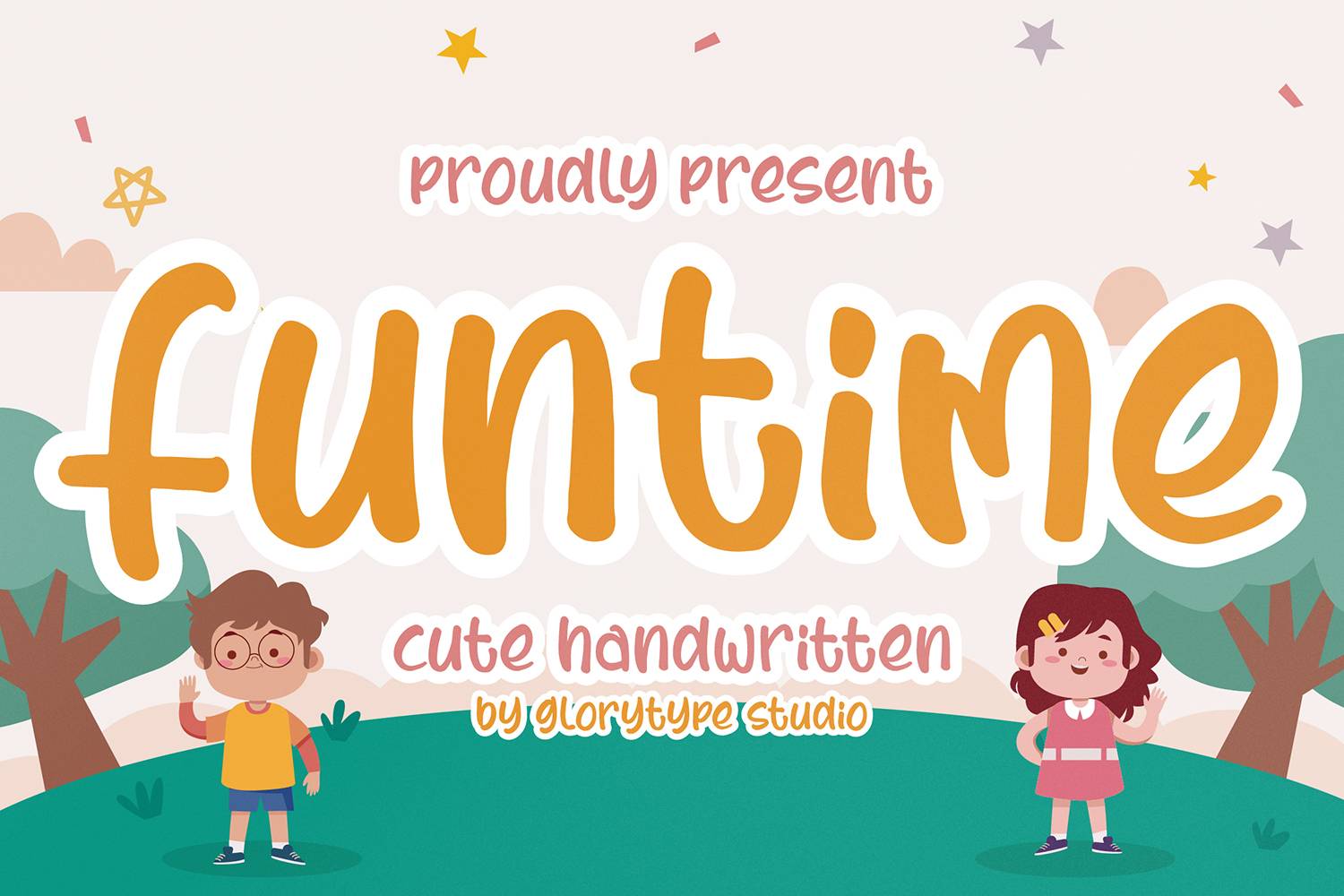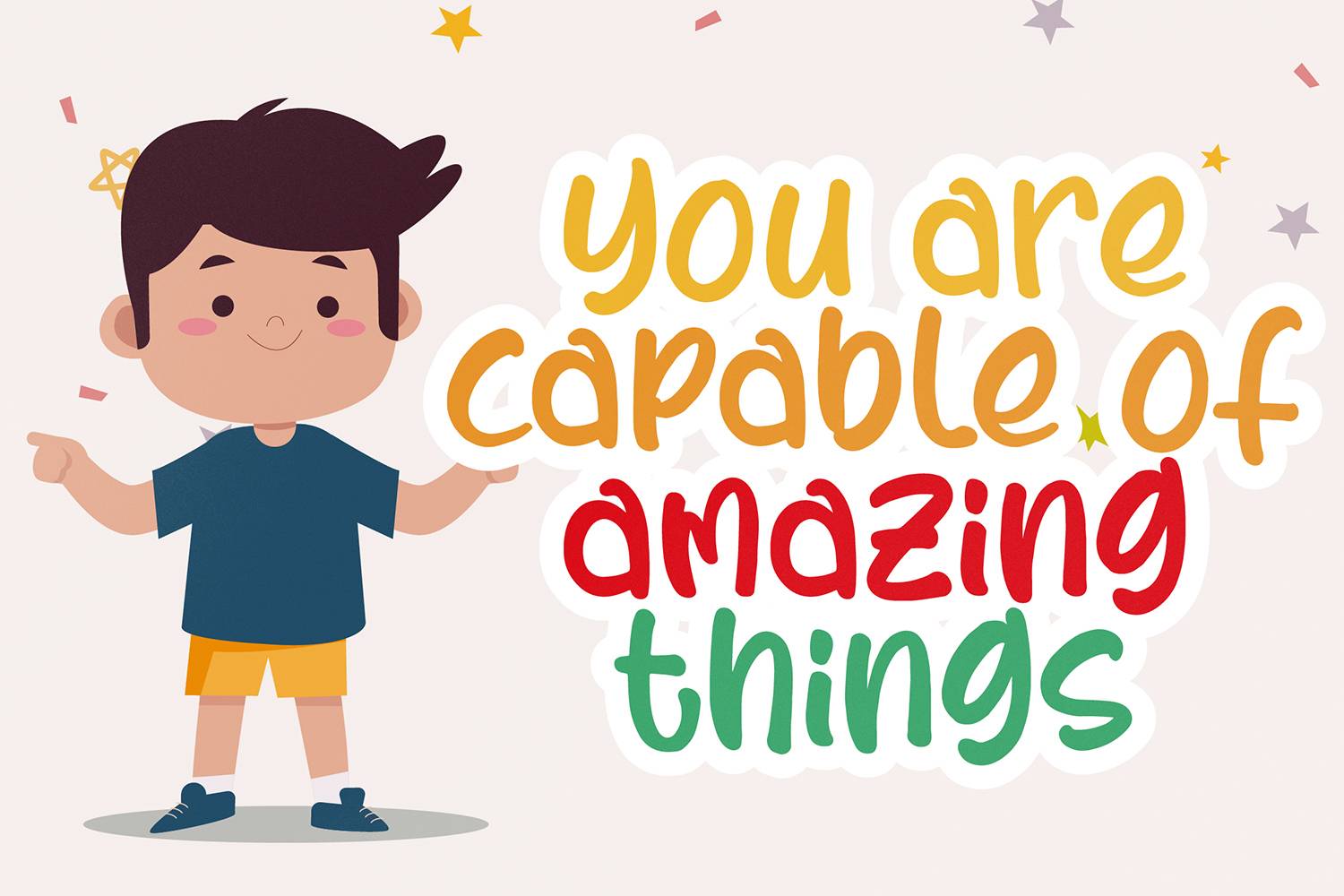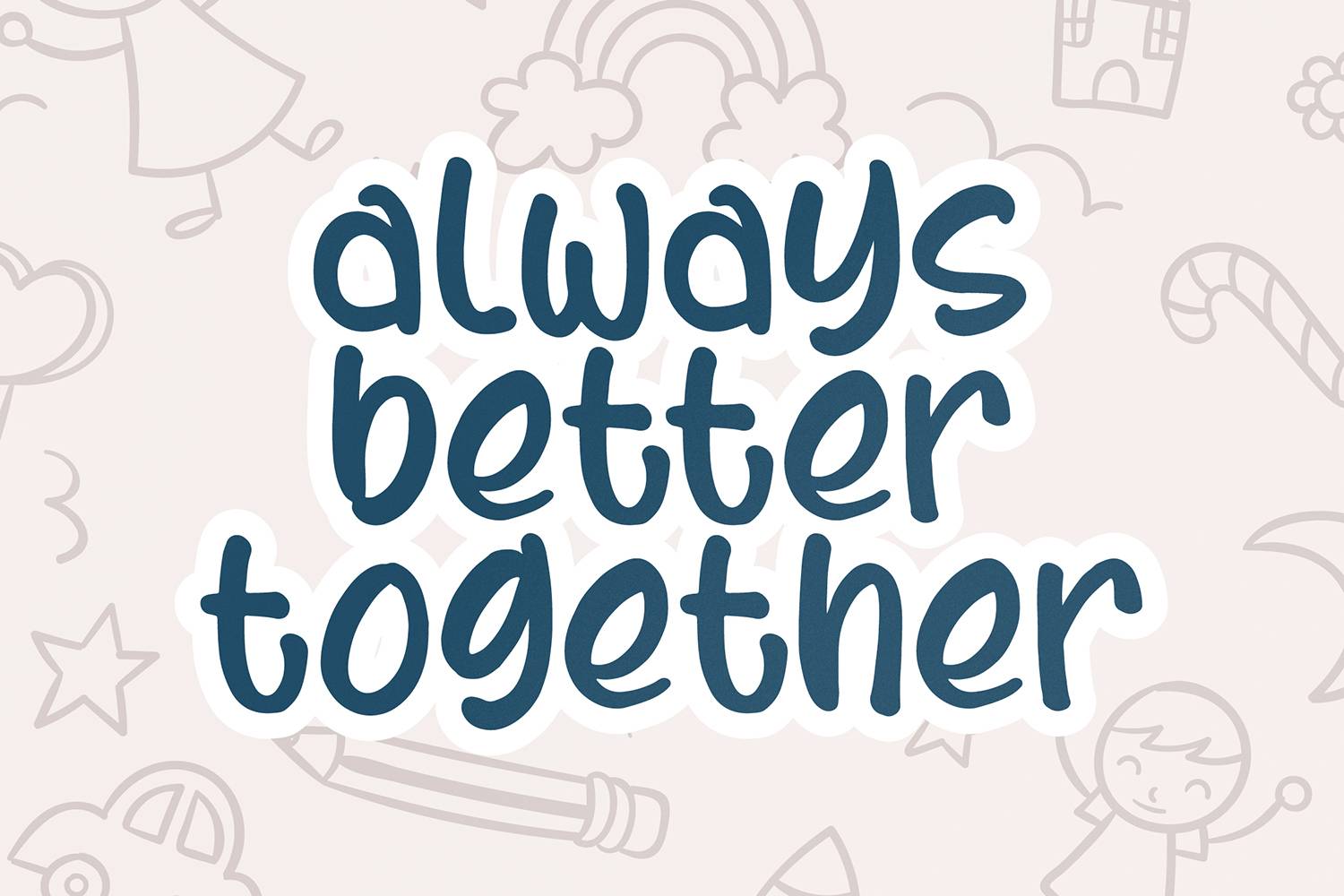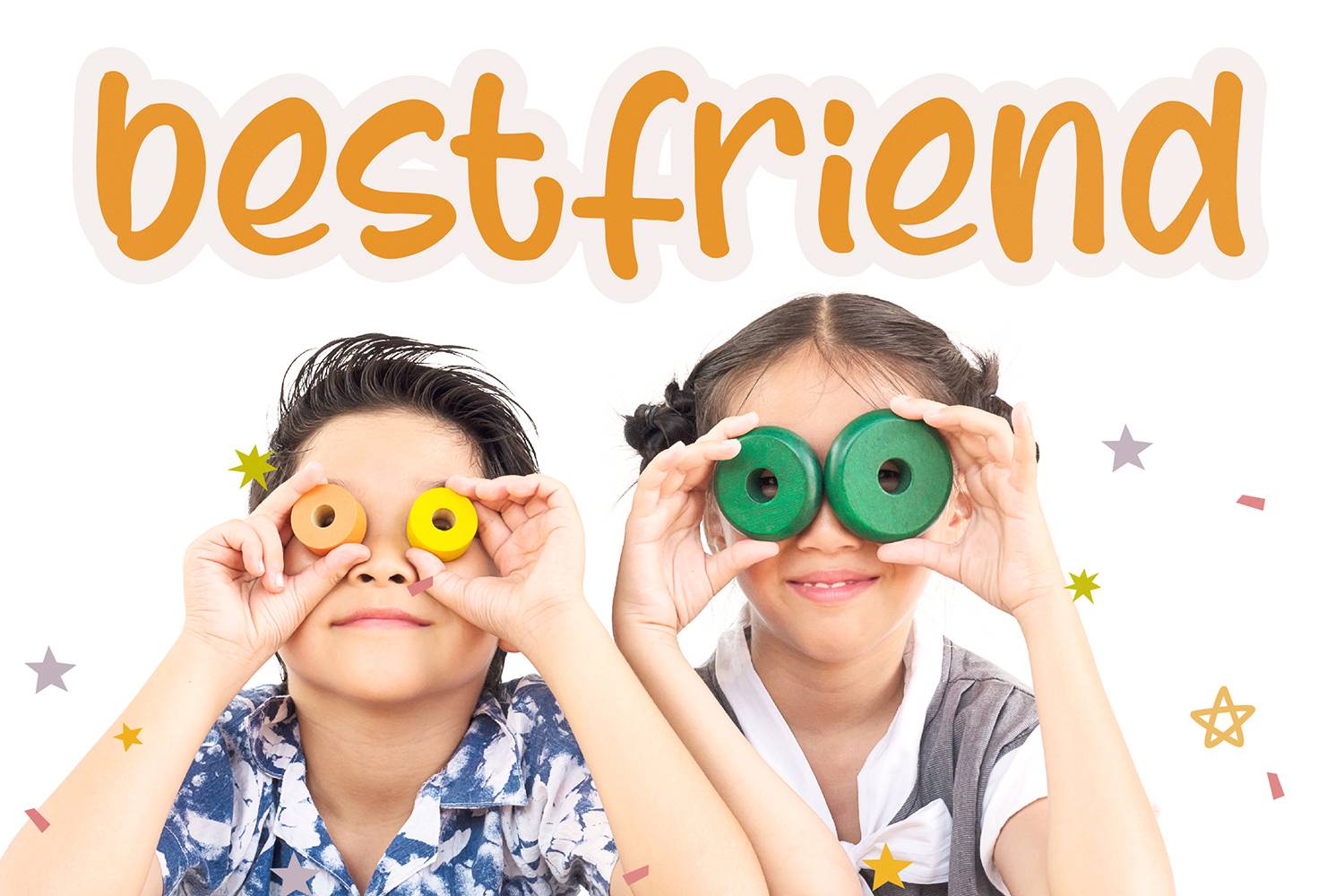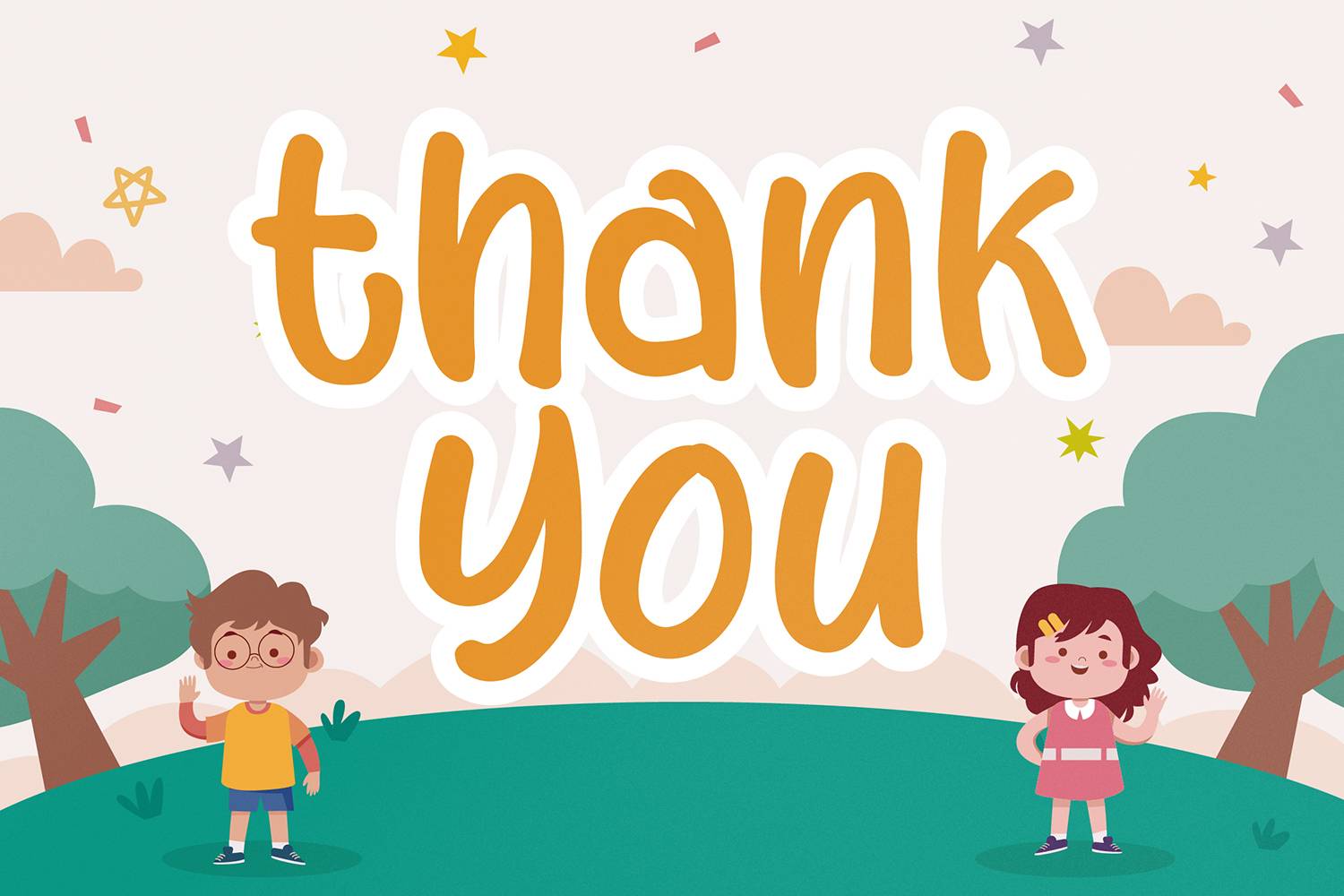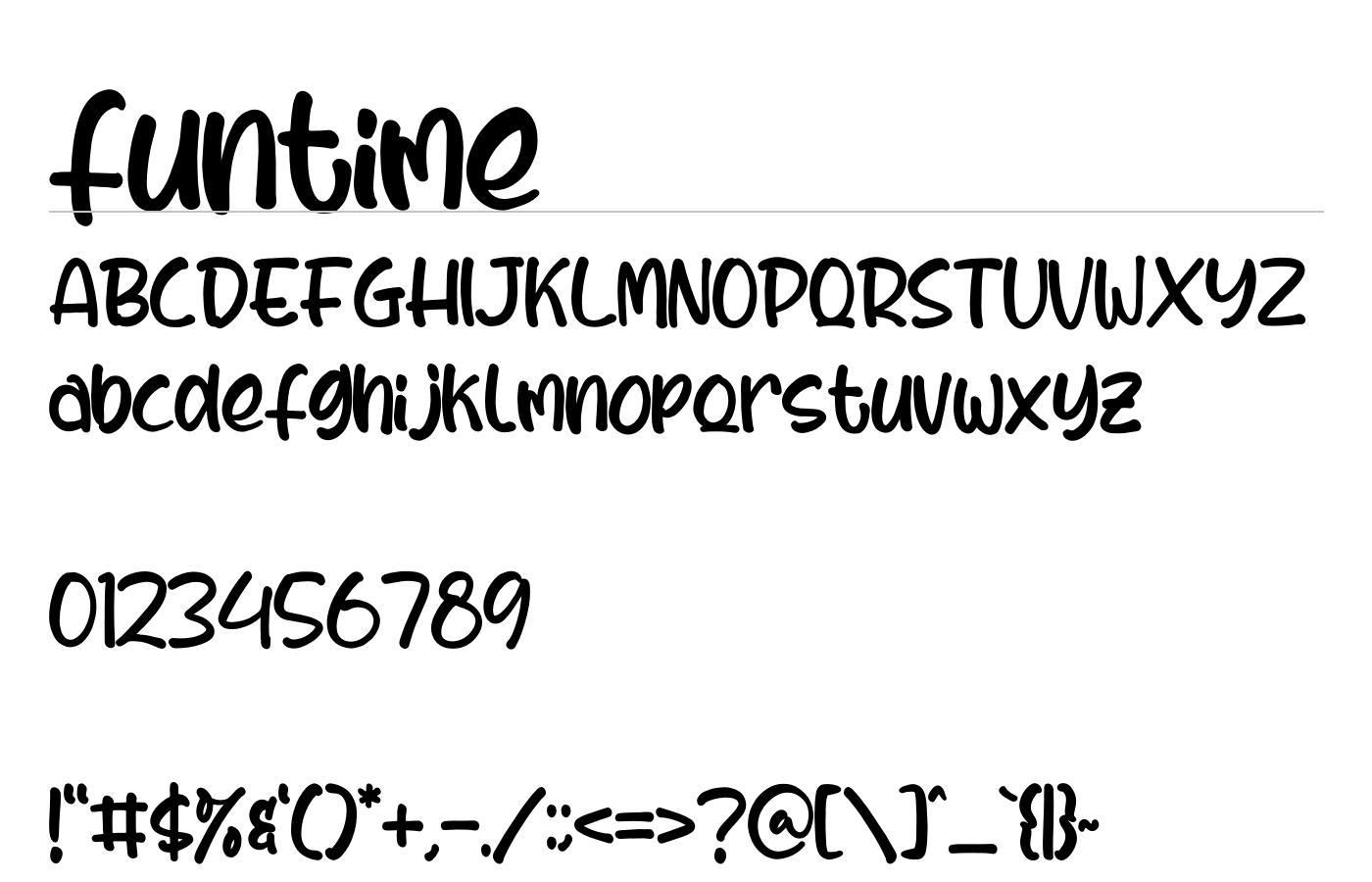
Funtime is a playful and casual handwritten font with a friendly, organic feel, featuring rounded strokes and slightly irregular letterforms that mimic natural handwriting. Its informal style and lively shapes make it perfect for projects targeting fun, creativity, and approachability, such as children’s books, casual branding, or informal invitations. This font works best in headlines and short text where a personal, cheerful touch is desired.
Funtime Font
About Funtime Font